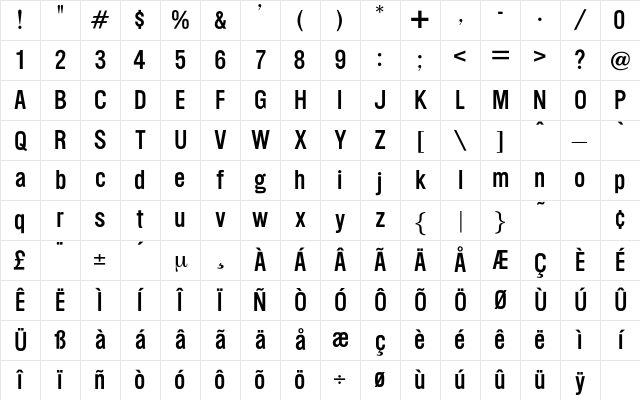
Washington Regular
Complete Washington Regular glyph index. Displaying only characters natively supported by Washington Regular font.
Design Context for Washington
Washington is a composed and adaptable typeface that performs quietly and consistently across a wide range of design contexts.
Pro Tip: Use Washington in both headline and body roles to test its range before committing to a single application.